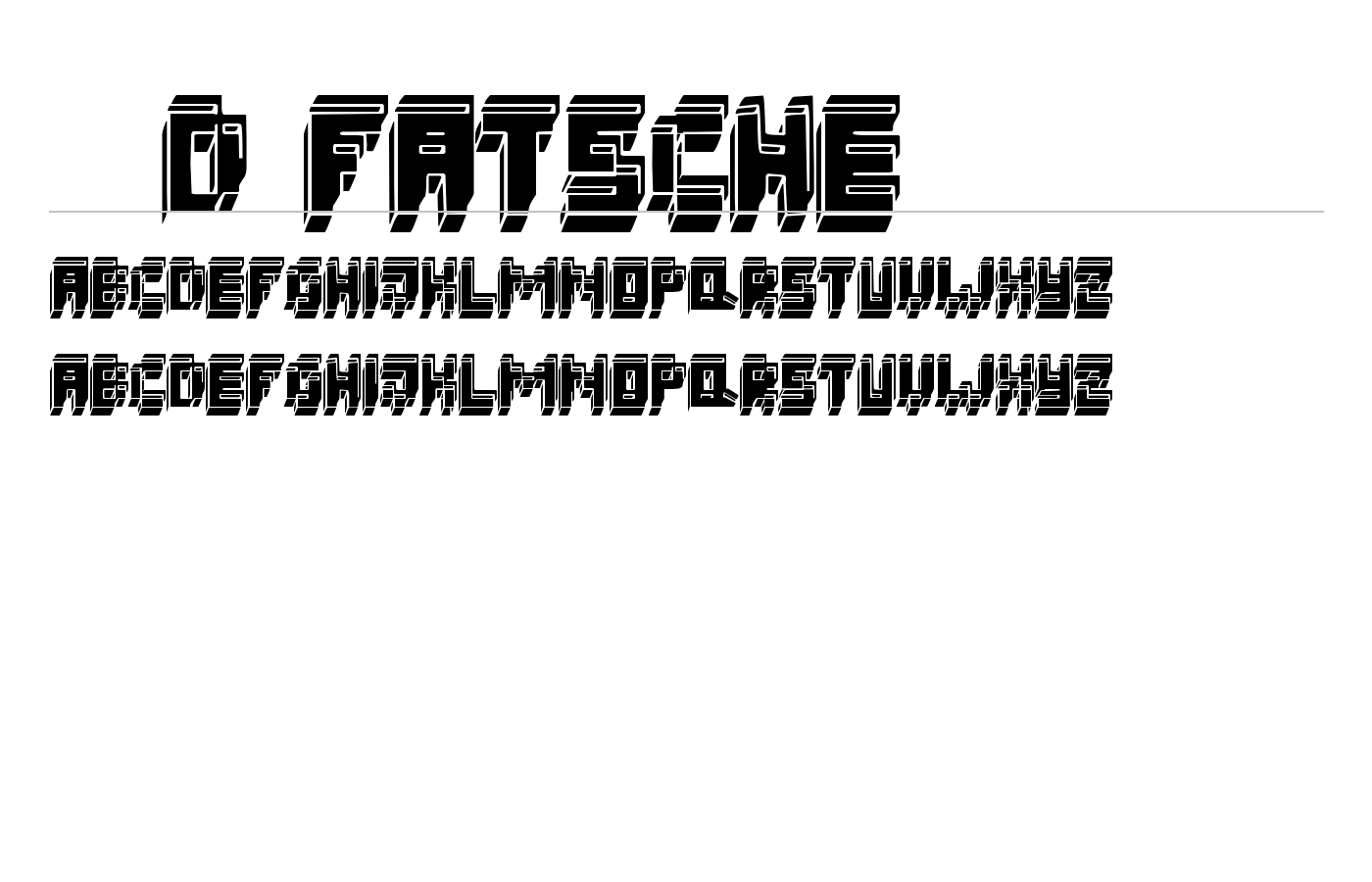
3d Fatsche is a bold, condensed sans serif font with a striking 3D block style that creates a strong visual impact. Its thick, geometric letterforms feature sharp edges and layered shadows, giving it a dynamic, retro-futuristic vibe ideal for eye-catching headlines and logos. This font works best in designs that need a powerful, modern statement, such as posters, branding for tech or gaming, and display use where a standout, energetic look is desired.